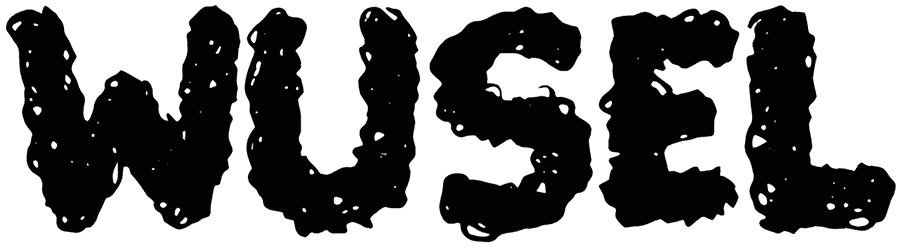
Wusel Font
Wusel’s intricate flourishes add a dose of playfulness to your designs. This fancy font looks like curly hair and can hide the secret in your writing. Its beauty will encourage the audience to read your content to discover this secret.
So, if you are looking for a new way to convey your message to the audience and want to make sure of its impact, ignore the lack of lowercase letters and give new life to your writing by adding Wusel.